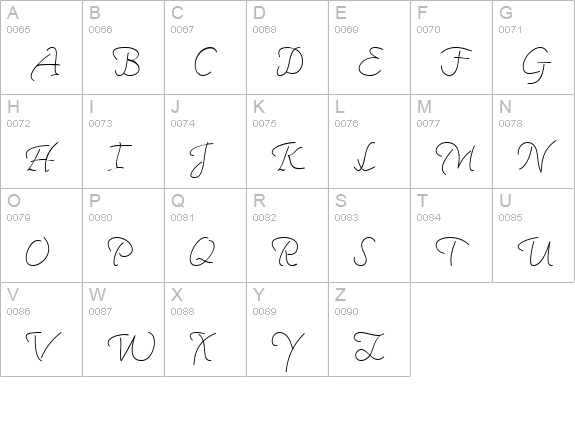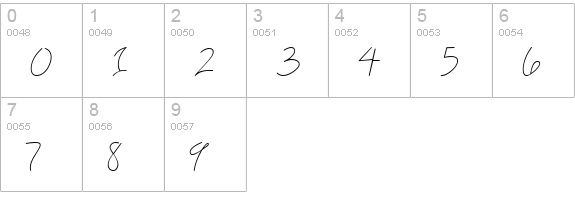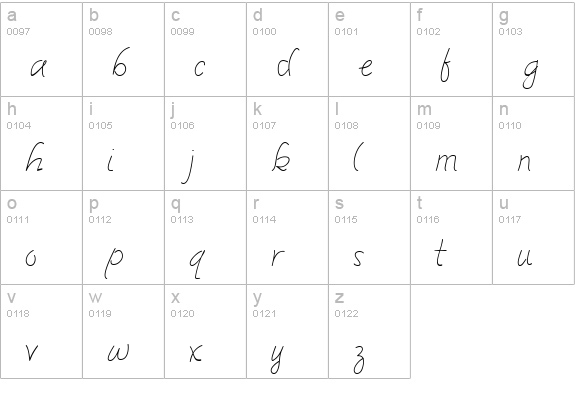
Introducing CK Flourish font, a beautifully crafted typeface that exudes elegance and sophistication. This stunning font features intricate flourishes and delicate details that add a touch of luxury to any design project. Perfect for wedding invitations, branding, and other creative endeavors, CK Flourish font is sure to make a lasting impression. What sets CK Flourish font apart is not only its exquisite design, but also the fact that it is completely free to download. That's right, you can get your hands on this gorgeous font without spending a dime. Simply head over to FontsMarket.com and start using CK Flourish font in your projects today. With its timeless charm and effortless beauty, CK Flourish font is the perfect choice for designers looking to add a touch of sophistication to their work. Download it now and let your creativity flourish with this stunning typeface.